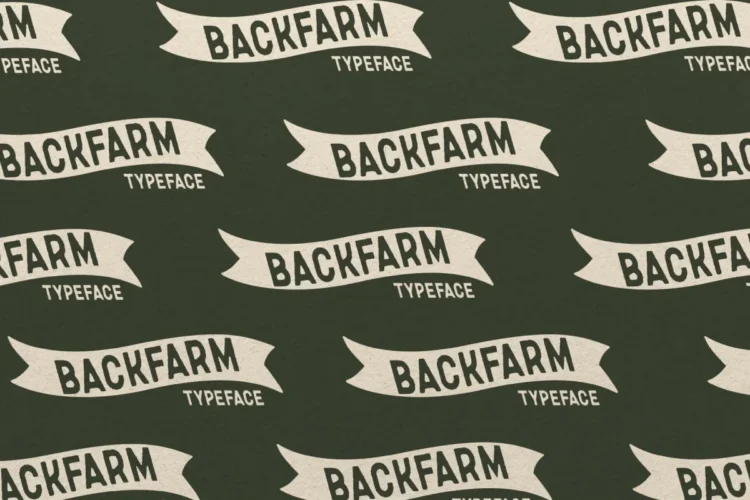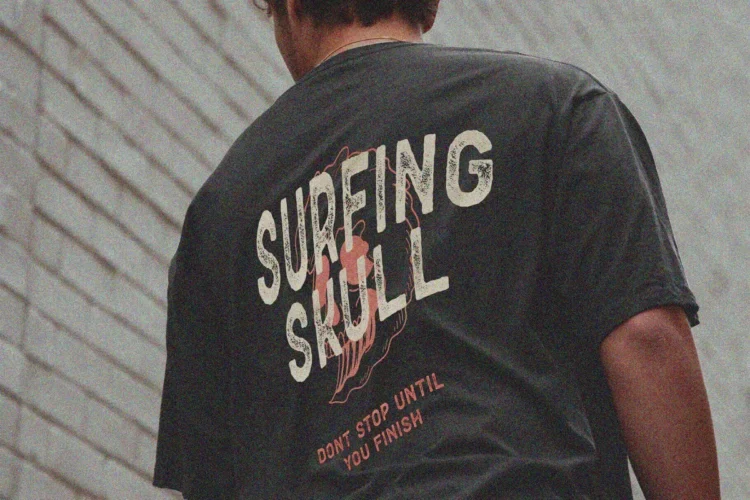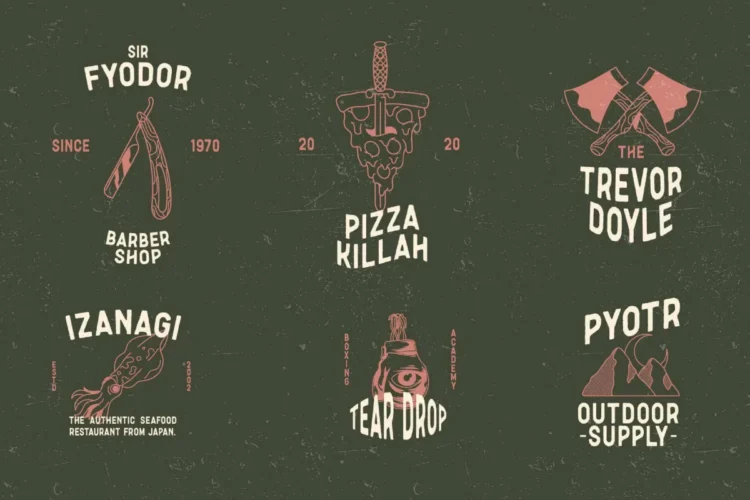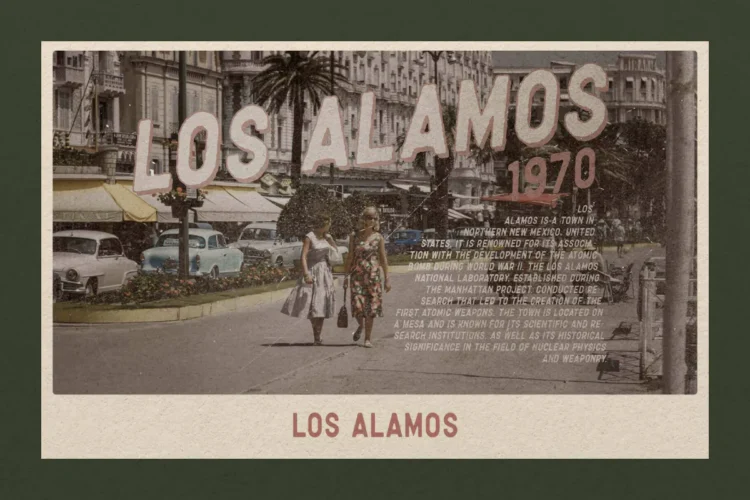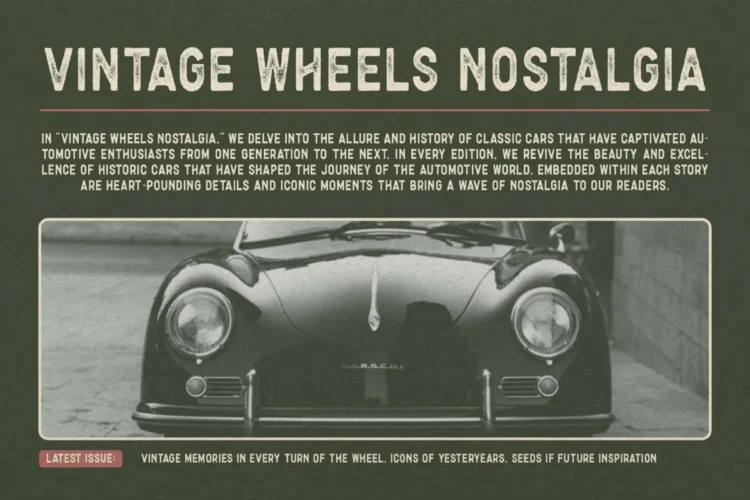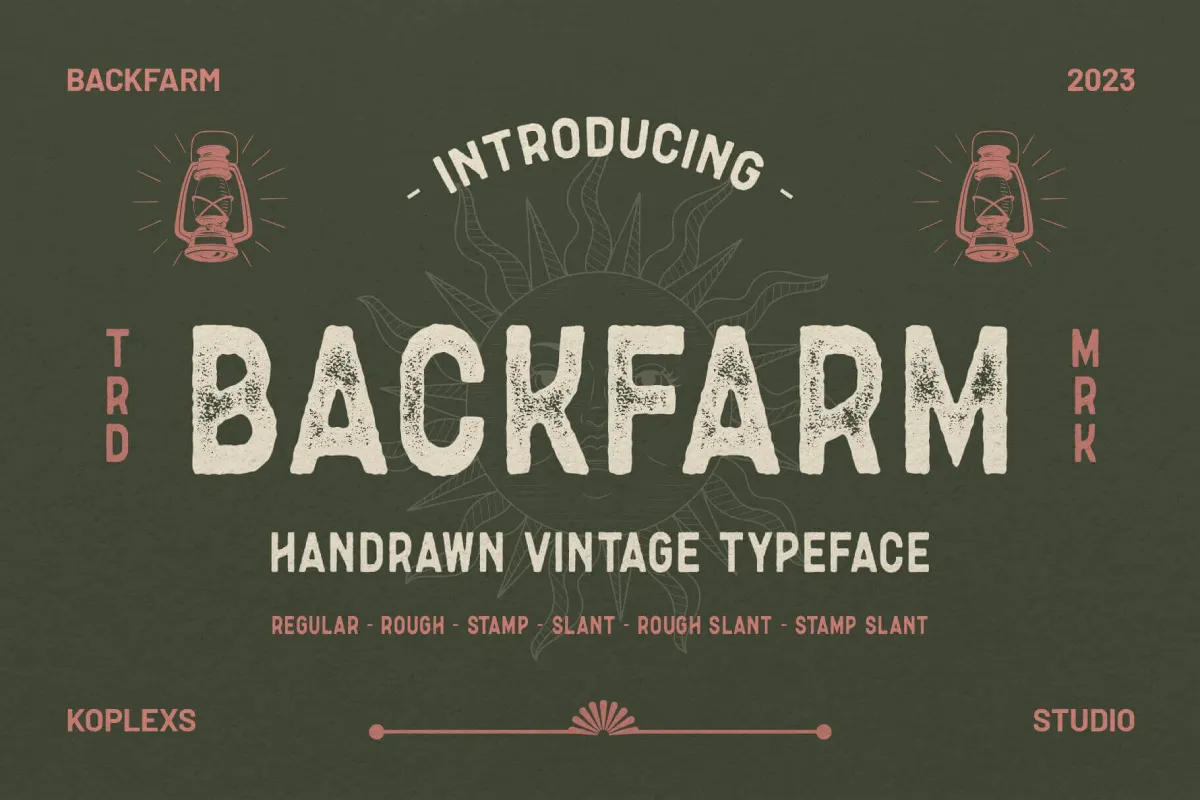
Backfarm Font – Handdrawn Vintage Typeface for Retro Branding & Adventure Design
Backfarm Font is a handdrawn vintage font designed for creators who love the rugged beauty of handcrafted typography. This retro font blends timeless character with modern font functionality, creating the perfect balance between nostalgia and contemporary style. Its slightly distressed font texture adds authenticity, making your designs stand out with personality and warmth.
Crafted with attention to detail, Backfarm comes in six expressive styles:
- Regular – Clean and balanced for readable text and classic layouts.
- Rough Font – Adds texture and handcrafted grit for a vintage touch.
- Stamp Font – Worn-out and weathered for a true rustic appearance.
- Slant Font – Dynamic and italicized for energetic compositions.
- Rough Slant – A combination of movement and handcrafted imperfection.
- Stamp Slant – Perfect for adventure or outdoor-themed designs.
Backfarm Font is versatile and works beautifully for :
- Brand Identity & Logos – Create authentic, memorable marks (branding font, logo font).
- Headings & Titles – Capture attention with bold, textured letters (heading font, headline font).
- Labels & Packaging – Add handcrafted flair to products (label font, packaging font).
- Adventure & Outdoor Themes – Evoke rugged exploration energy (adventure font, poster font).
- Vintage Posters & Merch – Perfect for apparel, signage, and retro advertising.
Whether you’re designing for vintage markets, outdoor brands, retro cafes, barbershops, or handcrafted products, Backfarm Font adds character and authenticity to every letter. Its versatility makes it a perfect blend of vintage charm and modern usability, delivering a bold and timeless look.
Bring your designs to life with the Backfarm Font a retro, distressed, and modern sans serif that captures the spirit of craftsmanship and adventure.